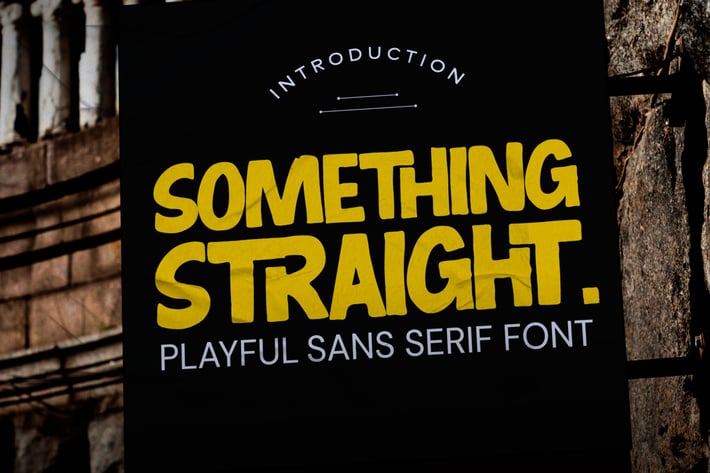
Something Straight - Playful Sans Serif Font
Something Straight is a Playful Display Font that will make your designs look modern, unique and fun.
+ Ligatures